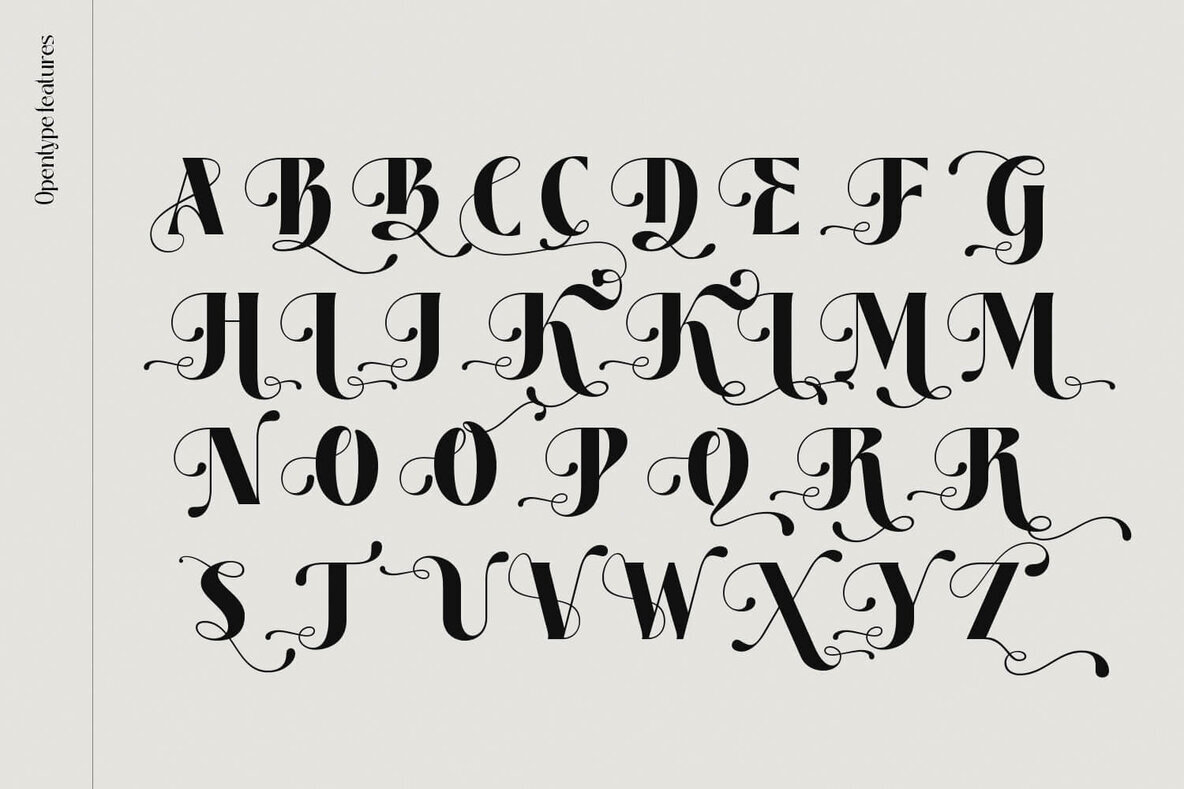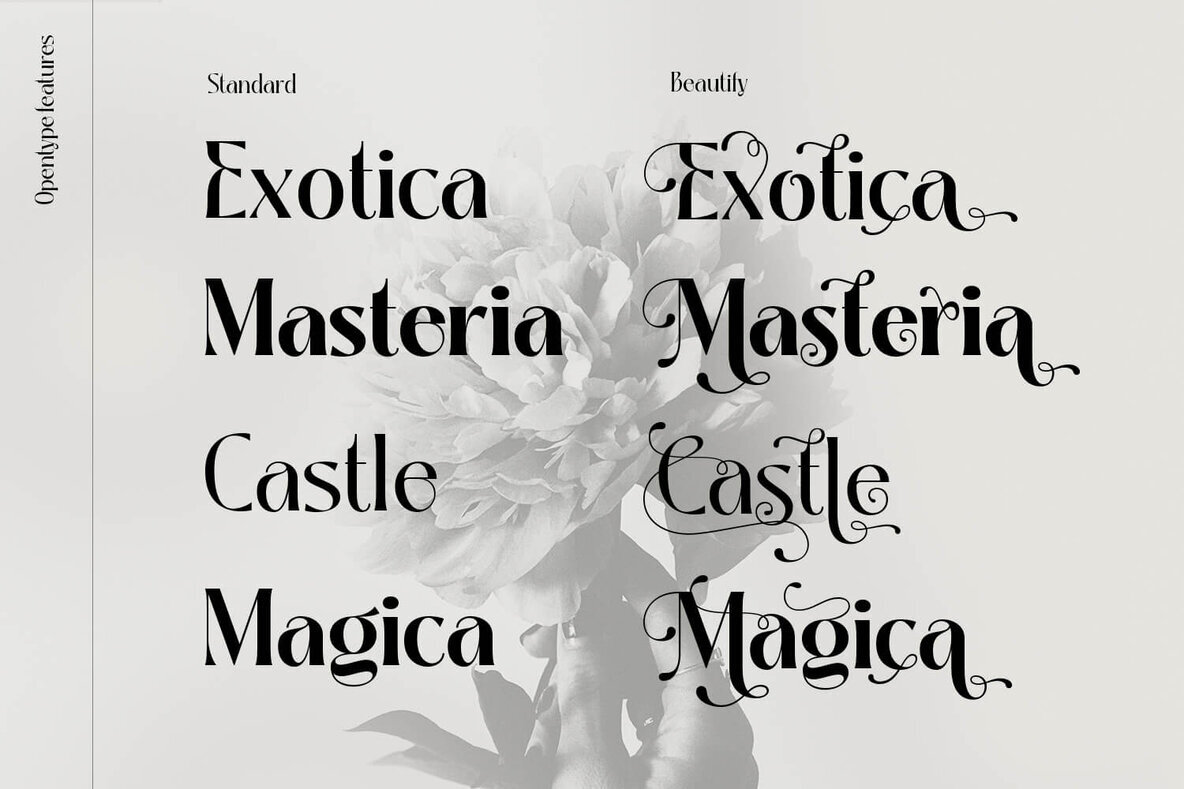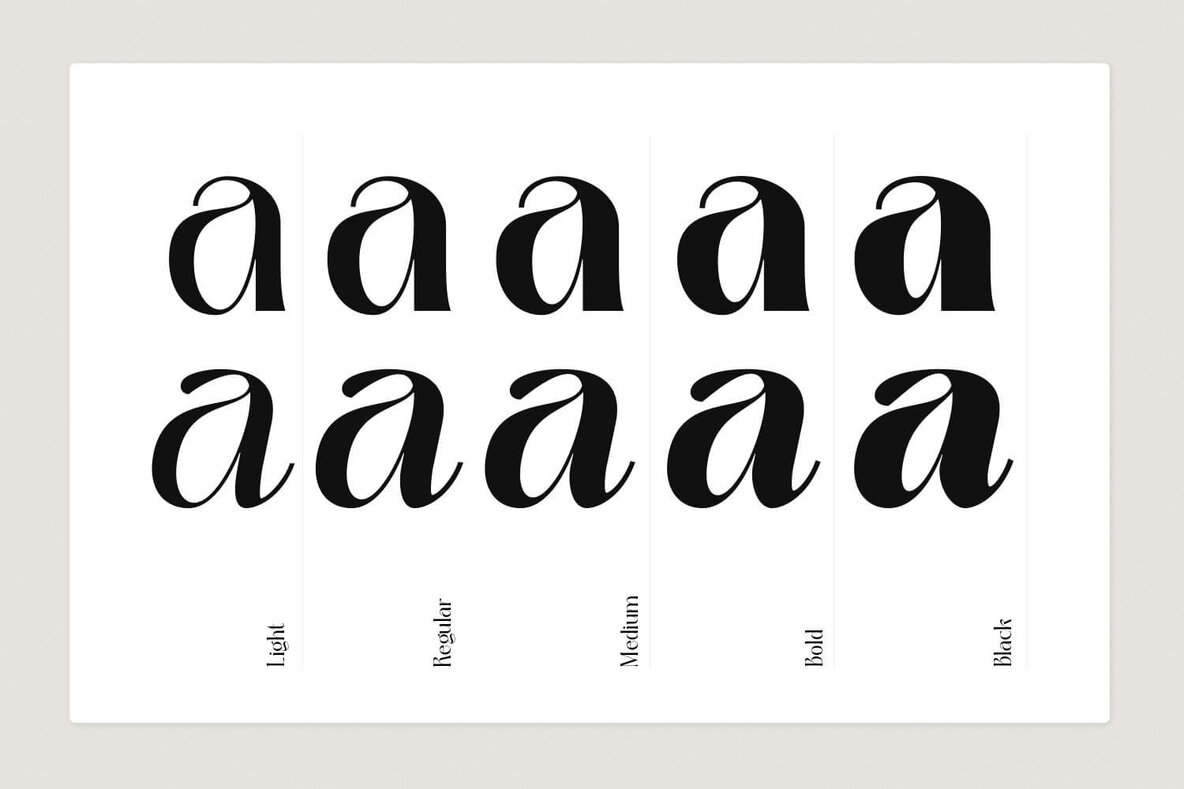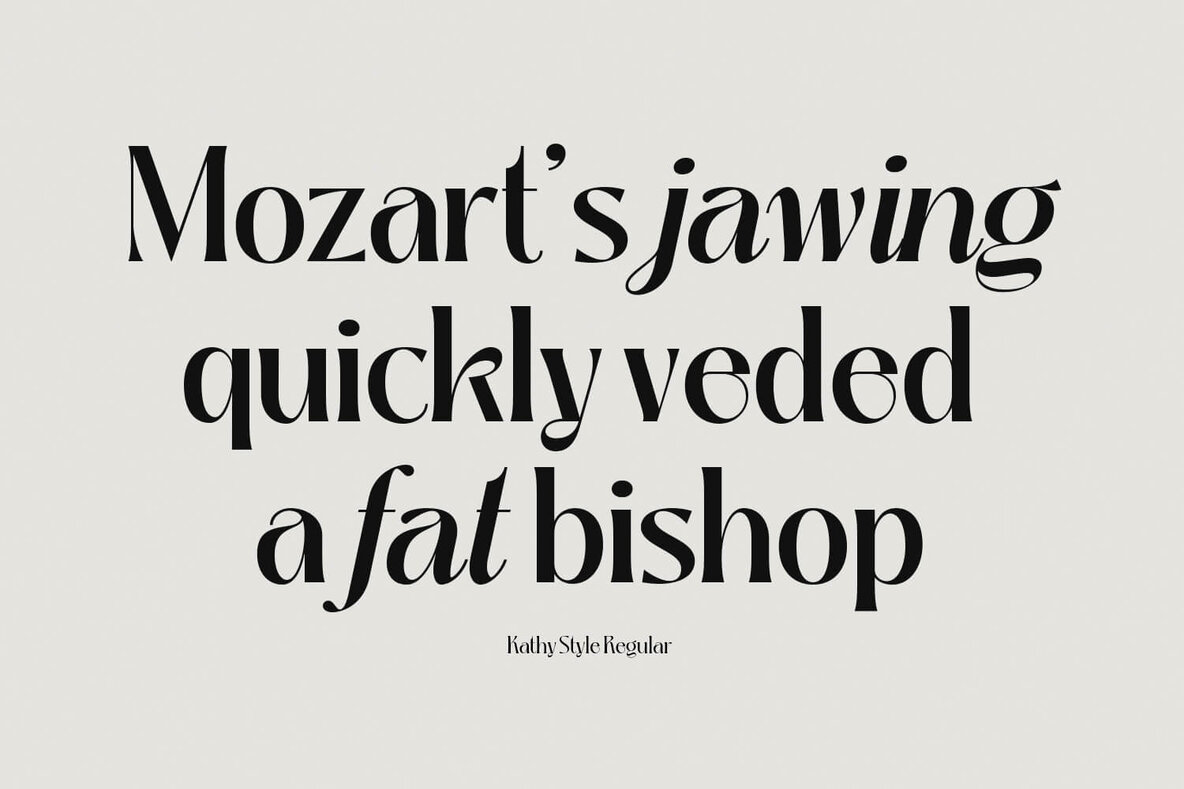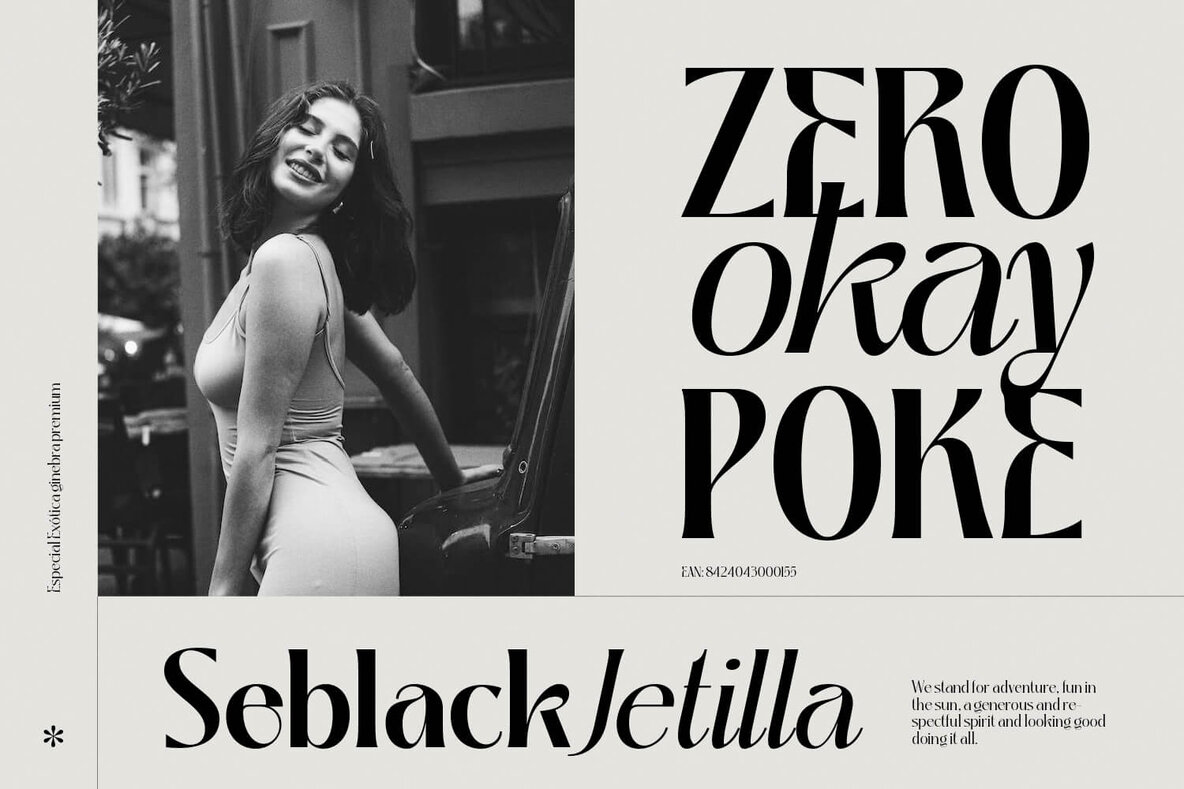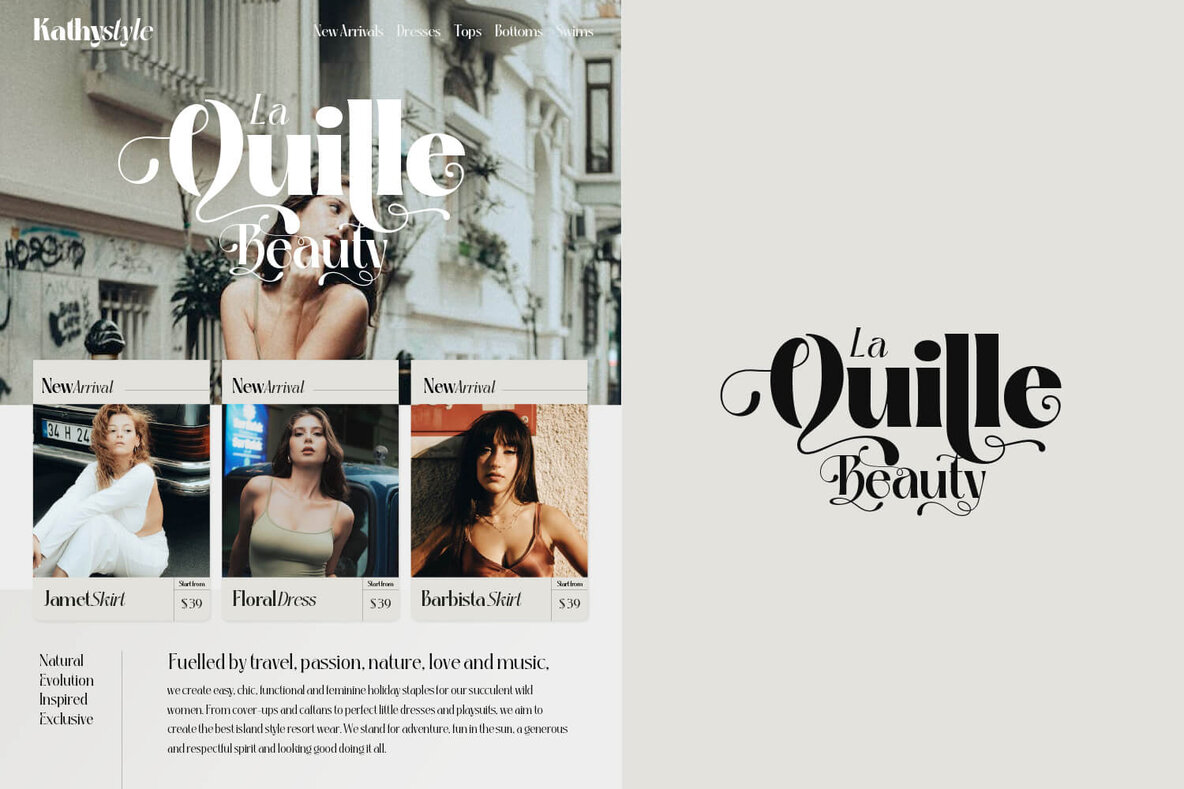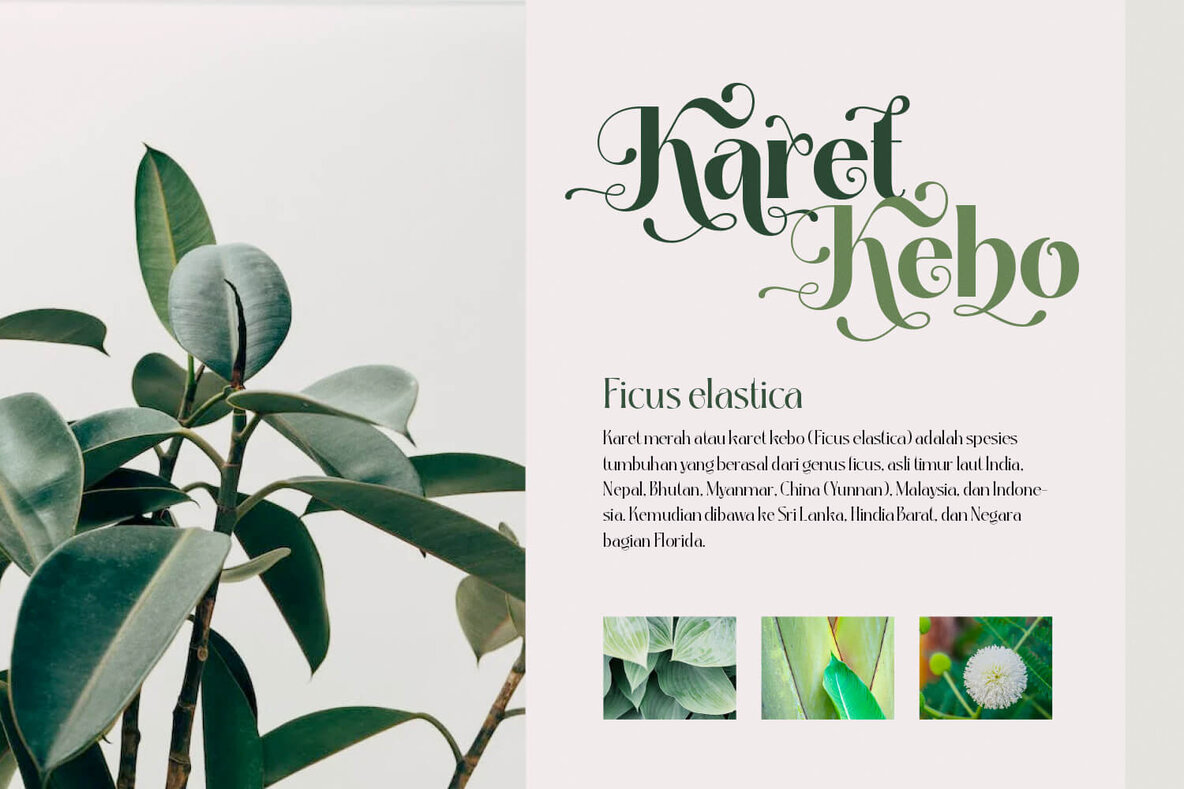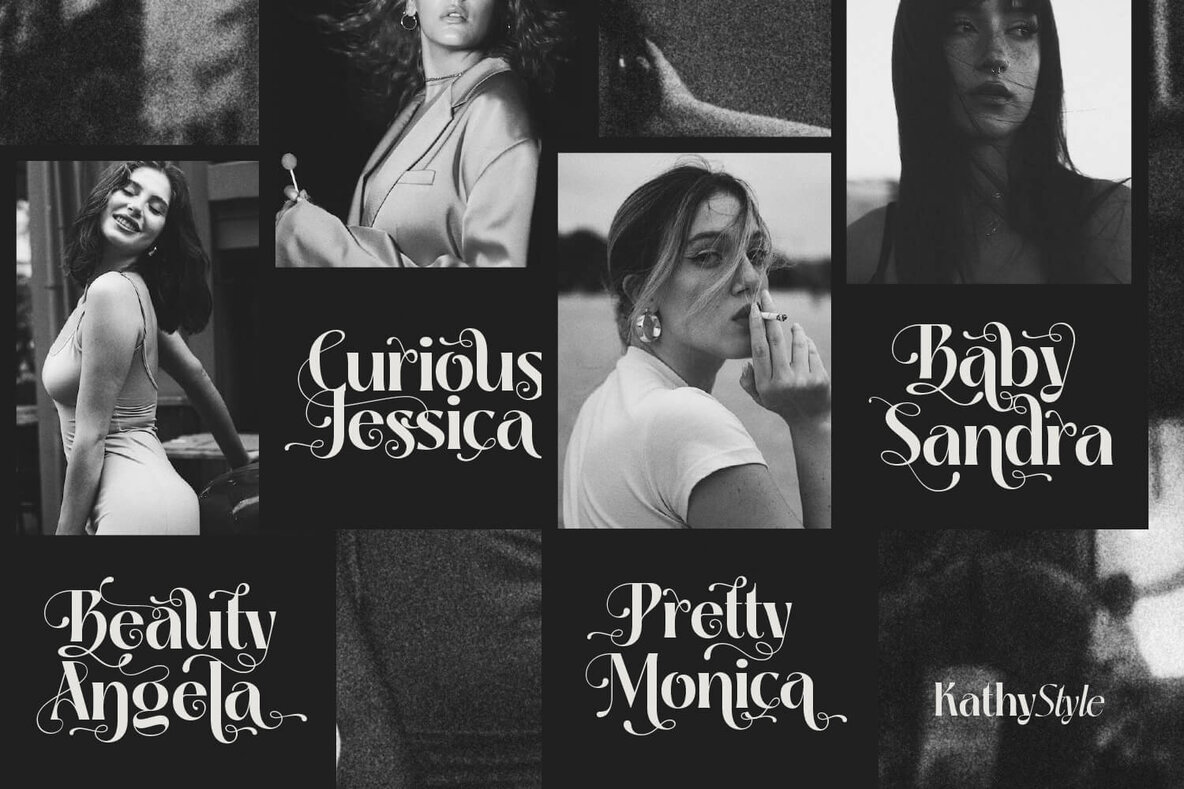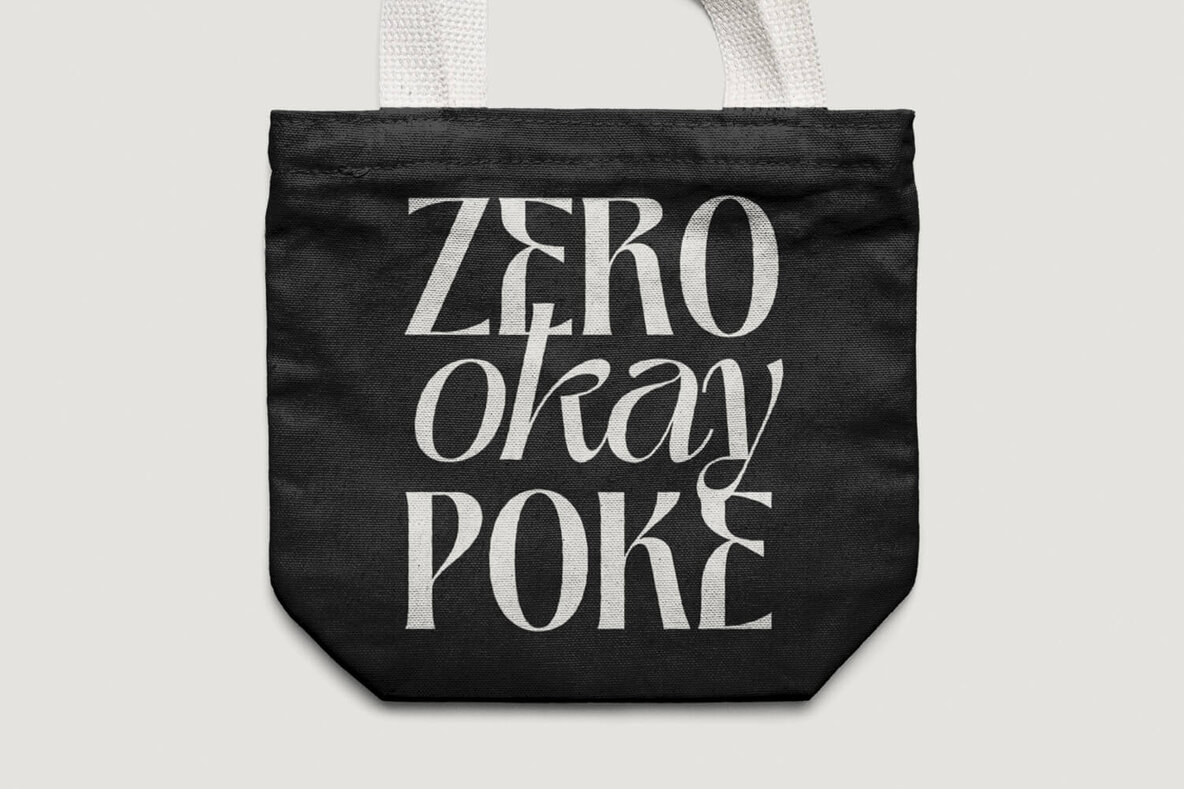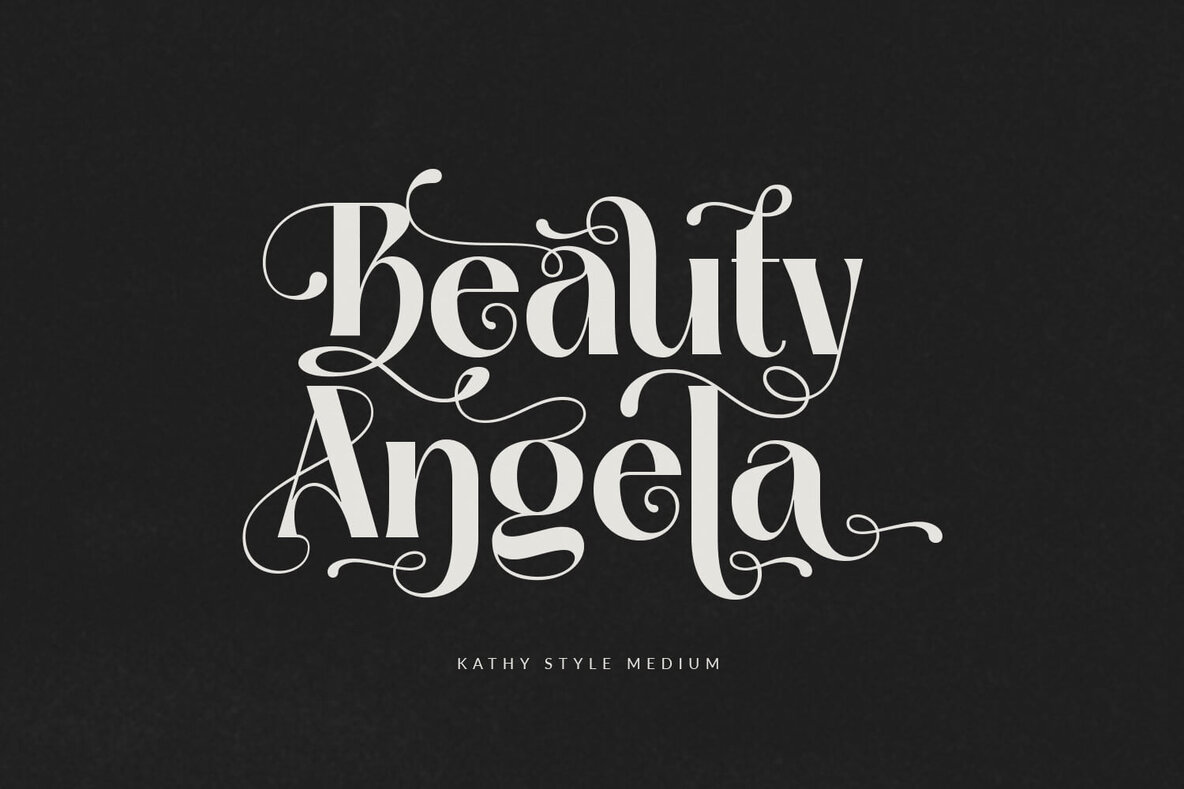
Kathy Style Font
Kathy Style is a modern, elegant, classic typeface with a timeless look. It comes with five weights with matching italic. With tons of alternative characters that can be adjusted to create a pretty heading, title or logotype. Kathy Style is perfect for fashion-related concepts, Luxury and Elegant design, Classy or high-end branding, logo, and many more. Try to combine the regular and italic styles for a modern and elegant look.